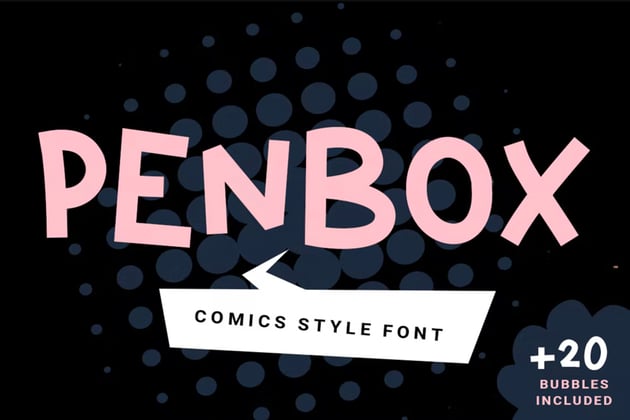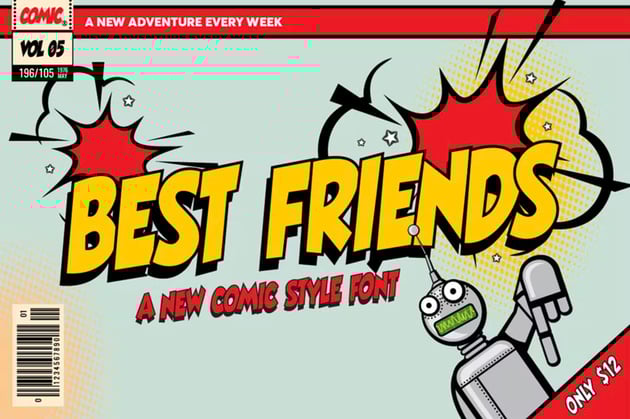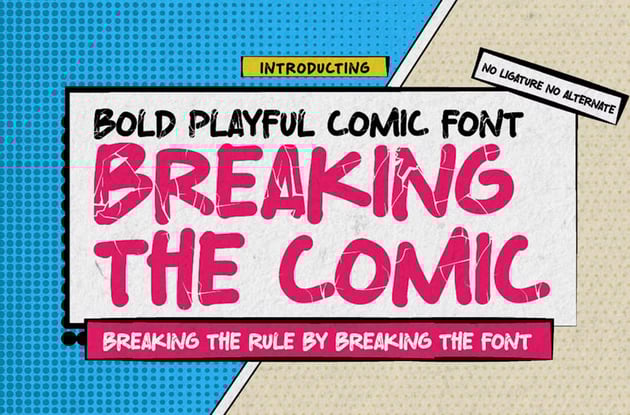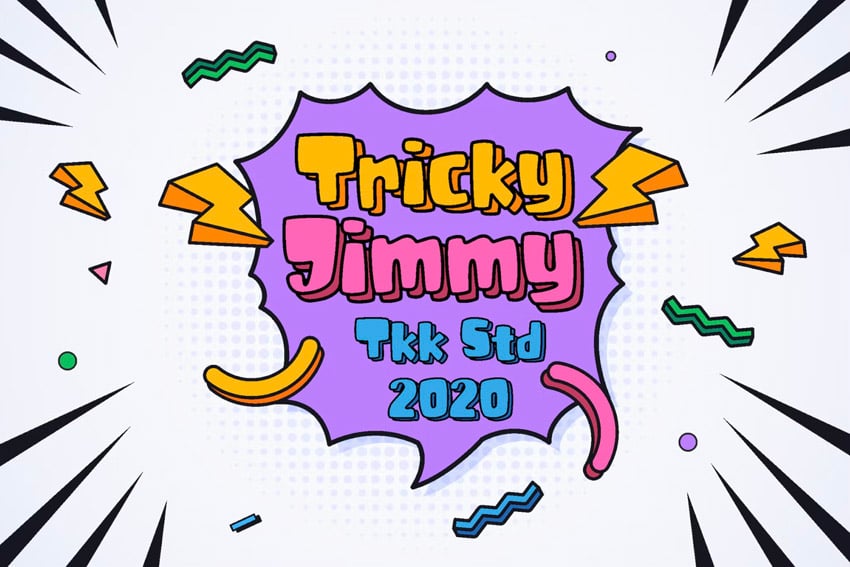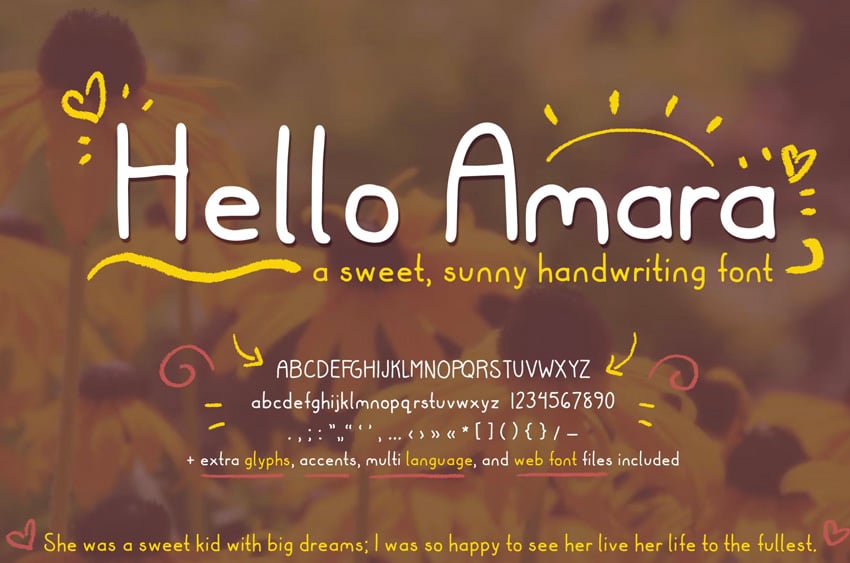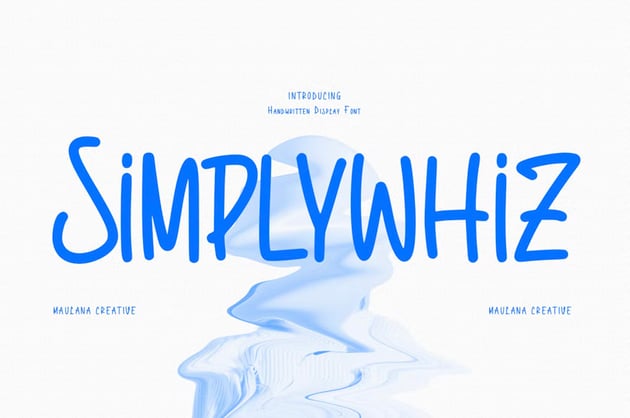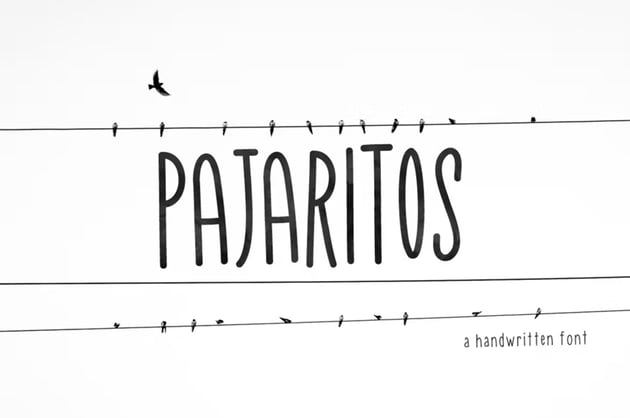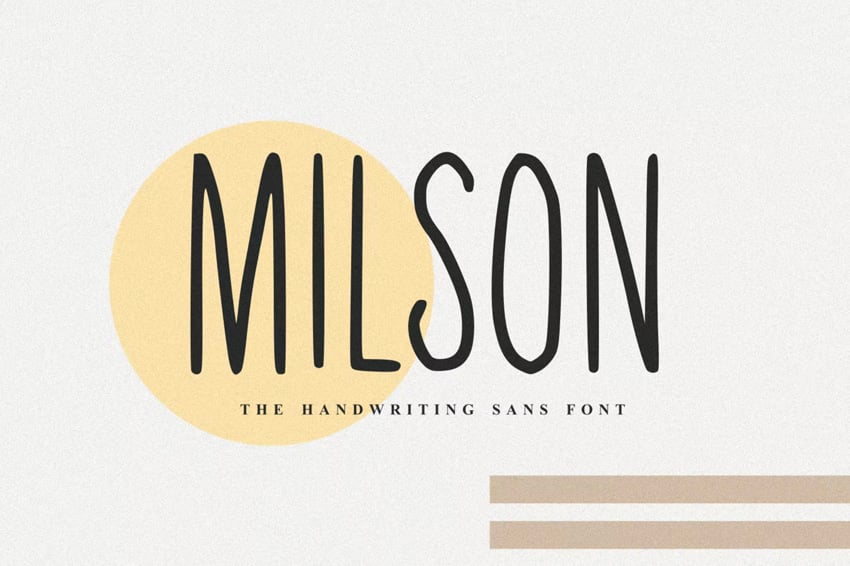
45 Best Comic Fonts & Cartoon Fonts (For Comic Books and More!)
Looking for the best fonts for comics? Whether you're looking for comic cover fonts, the perfect graphic novel font for lettering, or a fun cartoon font style, this collection of the best comic fonts from Envato Elements is for you.
35 Best Comic Fonts
Let's start things off with some comic cover fonts. A bold cartoon font style like these display fonts would be perfect for covers and large points of attention.
1. Ghostoons Comic Book Font (TTF, OTF)
Get spooky with this fantastic comic book title font. This playful font is great not just for your comic books, but also for cartoons, animation, kids' books, posters, and more.
2. CartooNature Comic Book Lettering Font (TTF, OTF, WOFF)
CartooNature is a cool and fun comic typeface that's guaranteed to liven up your comic book covers and cartoon titles. This wonderful font offers upper and lowercase characters, numbers, and punctuation.
3. School Mania Comic Book Style Font (TTF, OTF, WOFF)
Educational comic strips and cartoons will love this wonderful cartoon font, which combines the importance and the fun of learning in a blocky and cheery font. School Mania offers upper and lowercase characters, numbers, and punctuation.
4. Toyster Comic Book Title Font (TTF, OTF)
How awesome is this retro comic book font? As puffy as a marshmallow, Toyster is the kind of kid-friendly font that will make your titles stand out and get attention. The font comes in three different versions: regular, outline, and 3D.
5. Rough & Tumble Cartoon Letters Font (TTF, OTF, WOFF)
An energetic cartoon letters font, Rough & Tumble is just what you need to bring joy to your cartoon and comic book titles. The font is offered in uppercase only, but that's all you need for your titles.
6. Kiddo Sketch Comic Book Style Font (TTF, OTF, WOFF)
Here's a cartoon font reminiscent of the joy of playing with crayons to your heart's content. Kiddo Sketch includes upper and lowercase characters, numbers, and punctuation, and it's perfect for cartoons, comics, and all sorts of merchandising.
7. Good Day Retro Comic Book Font (TTF, OTF, WOFF)
Ya gotta love this quirky and creative retro comic book font. Use it to create eye-catching titles for your comics, cartoons, posters, and more.
8. Playkidos Font Used for Comics (TTF, OTF, WOFF)
Need a fun, creative, kid-like font for your comic book cover? How about the wonderfully named Playkidos comic book title font? This display font contains both upper and lowercase characters, numbers, and punctuation, so you have everything you need to create outstanding text.
9. Kitty Fat Comic Book Font (TTF, OTF)
Kitty Fat is a sweet handwritten display font made with a large brush pen. Bold and smooth, it's the perfect comic lettering font for projects targeting kids.
10. Playtime Comic Letters (TTF, OTF, WOFF)
Playtime Comic Letters is a fun comic font that kids will love. This fresh and fantastic font comes with a fun vector pack of quirky characters that you can use to complement your designs.
11. Buzinga! Comic Book Title Font (TTF, OTF, WOFF)
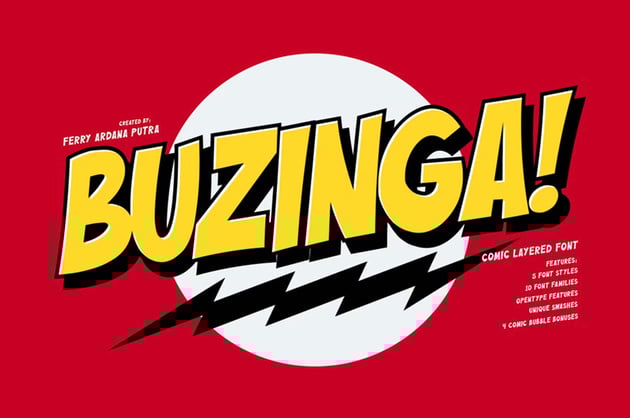
This bold comic lettering font has a retro superhero vibe to it. It would be a great way to command attention on your comic book page. Or use it to evoke an association with superheroes and a comic aesthetic in general.
12. Super Kids Cartoon Text (TTF, OTF)
How about Super Kids, a bold and eye-catching cartoon text children will love? The font offers both upper and lower-case letters, numbers, and punctuation. Use it to create eye-catching titles, awesome T-shirt logos, and fabulous posters.
13. Routiey Comic Book Title Font (OTF)
Routiey Comic Book Title Font is a quirky handwriting font that offers uppercase letters only. Though not appropriate for all projects, this comic font is a great choice when you want a one-of-a-kind font that will make your text stand out.
14. Sugar Bomb Pop Art Comic Book Font (TTF, OTF, WOFF)
What could be better than a sugar bomb? Why, a pop art comic book font inspired by a sugar bomb, of course. This bold and comical font is designed to call attention to itself, so use it for your titling, knowing that all eyes will be on your cover.
15. Kidsglow Comic Book Lettering Font (TTF, OTF)
Kidsglow is a comic book lettering font that offers upper and lowercase characters, numbers, punctuation, and 350 additional glyphs to help you create comic book covers and cartoon titles that are uniquely yours.
16. Tytoon Mist Old Comic Book Font (TTF, OTF, WOFF)